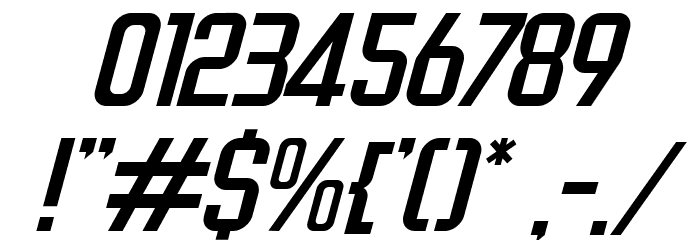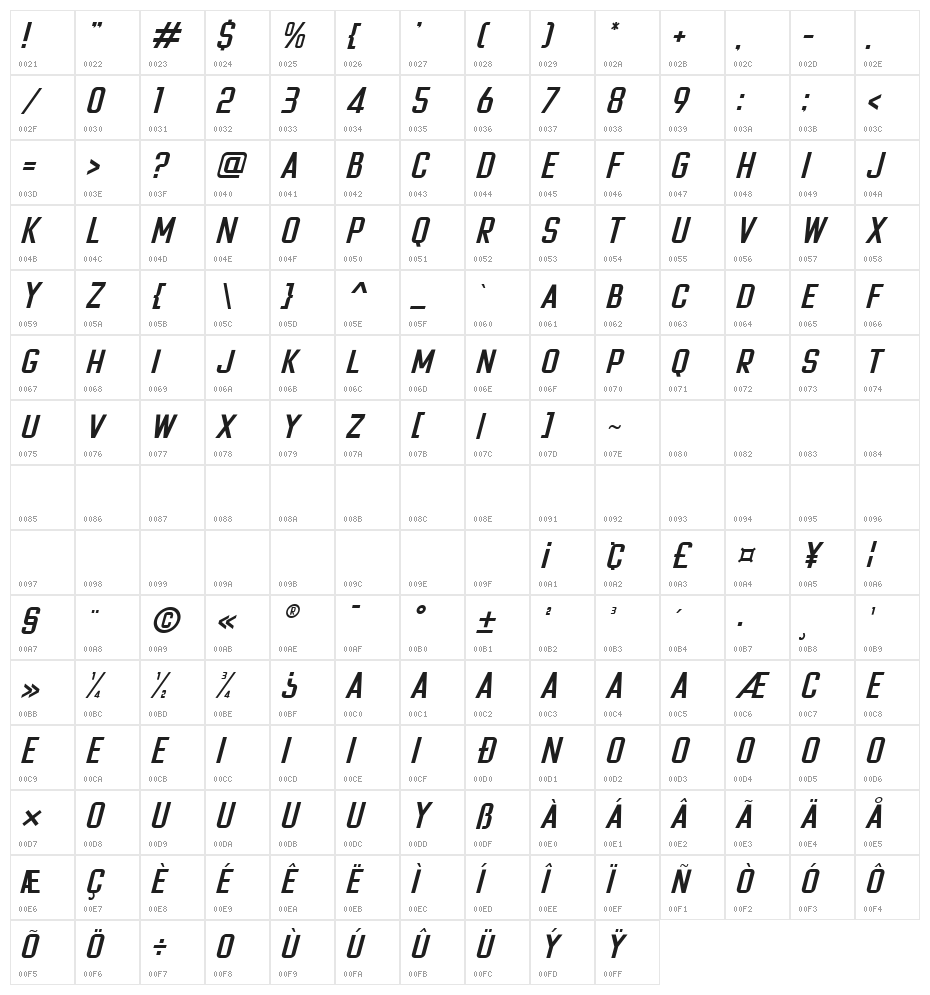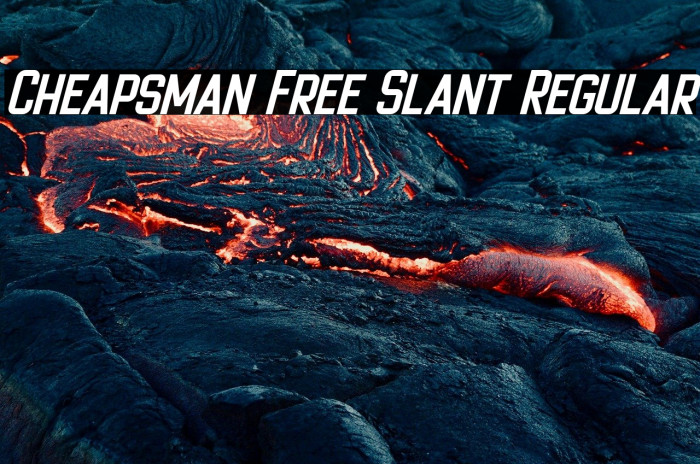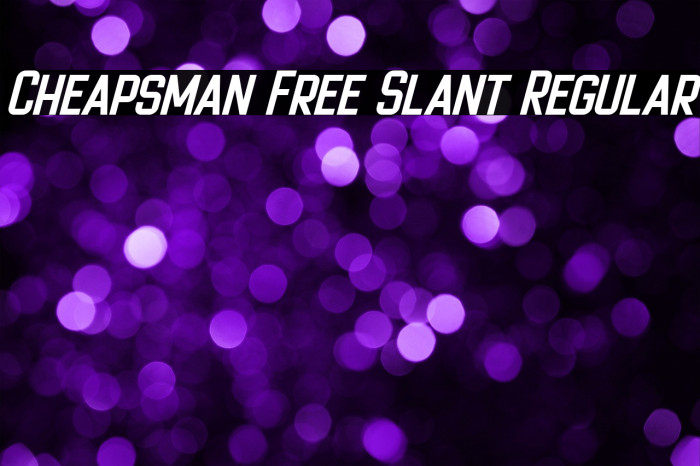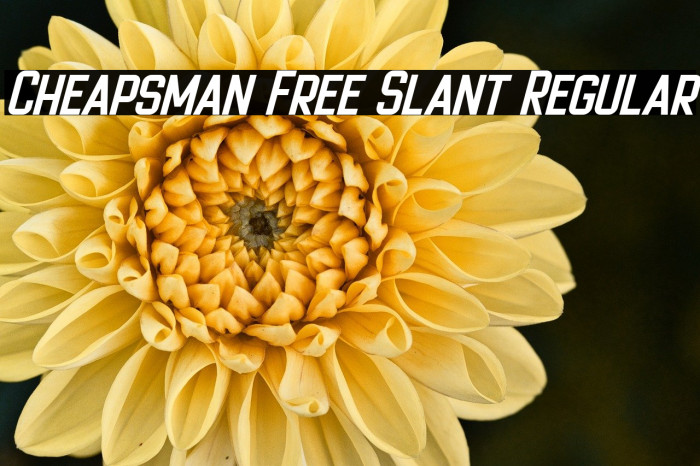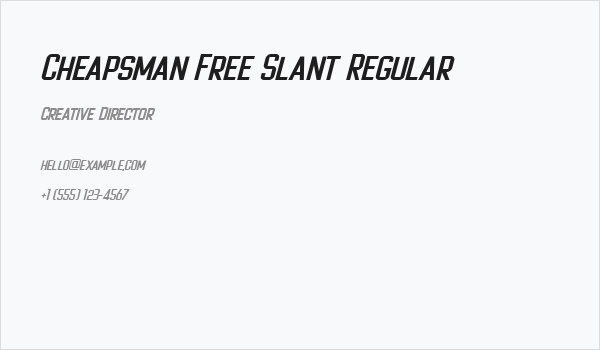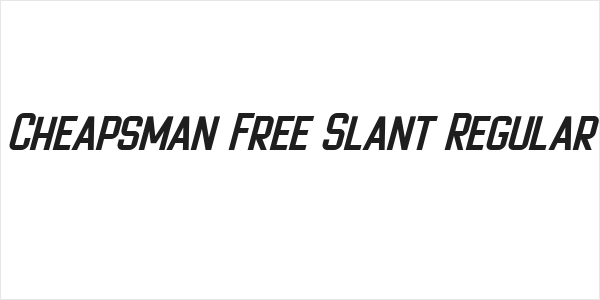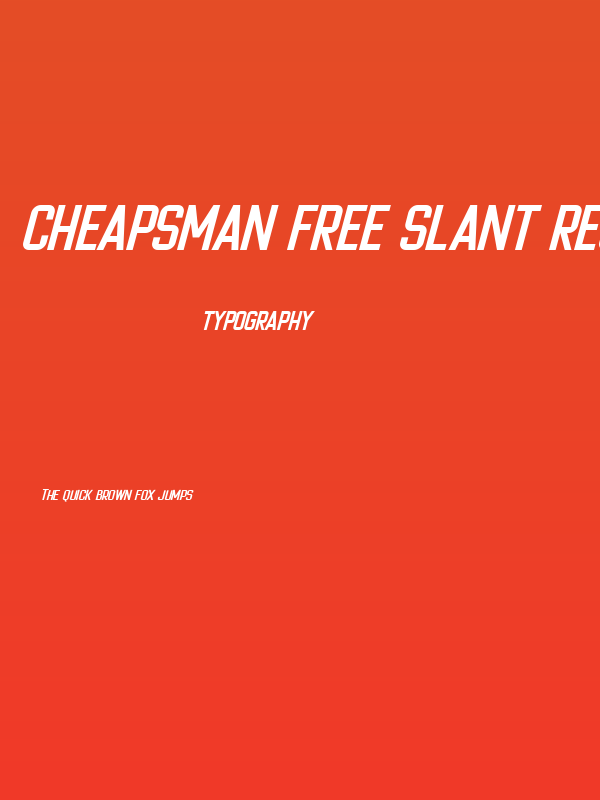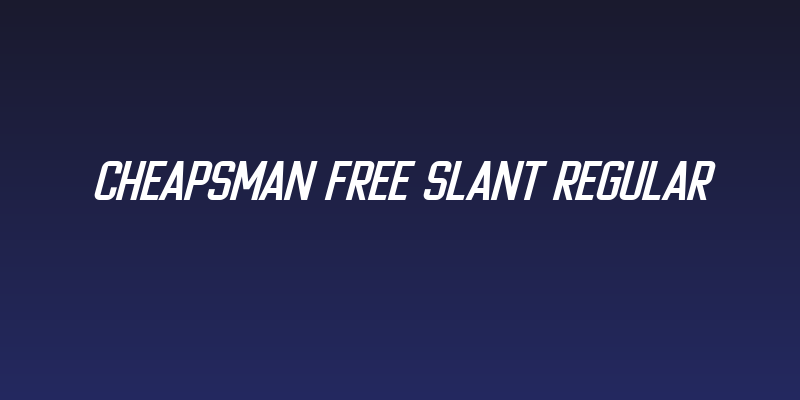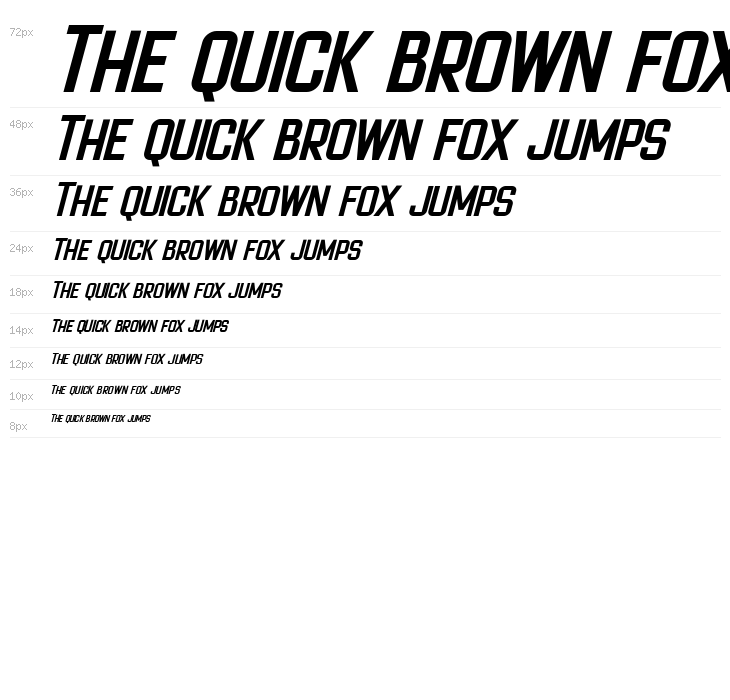
Cheapsman Free Slant Regular Font
Cheapsman Free Slant Regular Description
This font exhibits a dynamic and modern aesthetic with its slanted, italicized form. The characters are bold and slightly condensed, giving a sense of speed and urgency. The angular design of the letters adds a contemporary flair, making it suitable for attention-grabbing headlines and impactful designs. The numbers and special characters maintain the same slanted style, ensuring consistency across all elements. The overall appearance is sleek and professional, ideal for projects that require a bold statement.
| Proposed Projects | Ideal for sports branding, automotive advertisements, dynamic posters, and modern web design. |